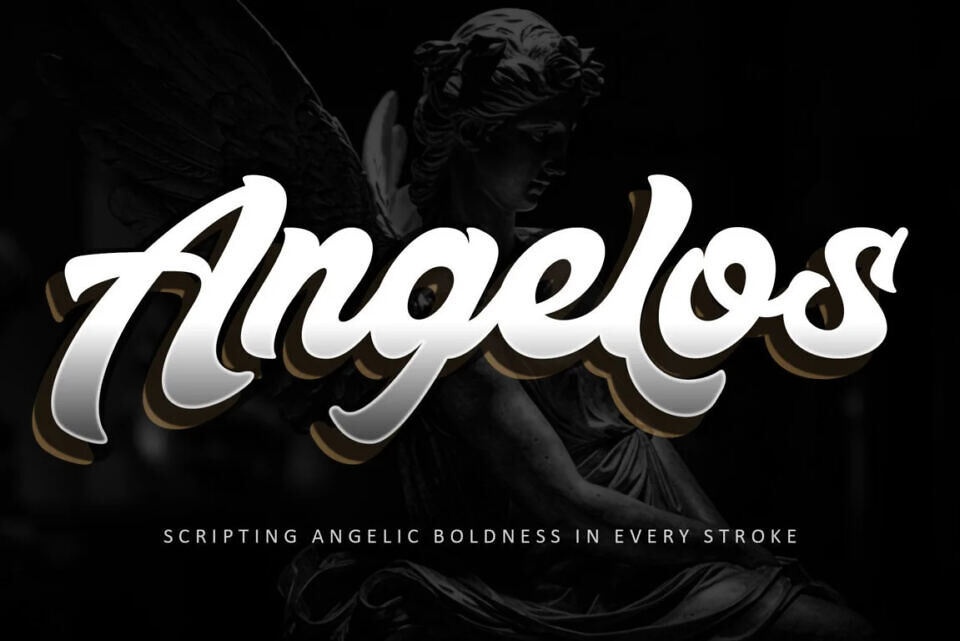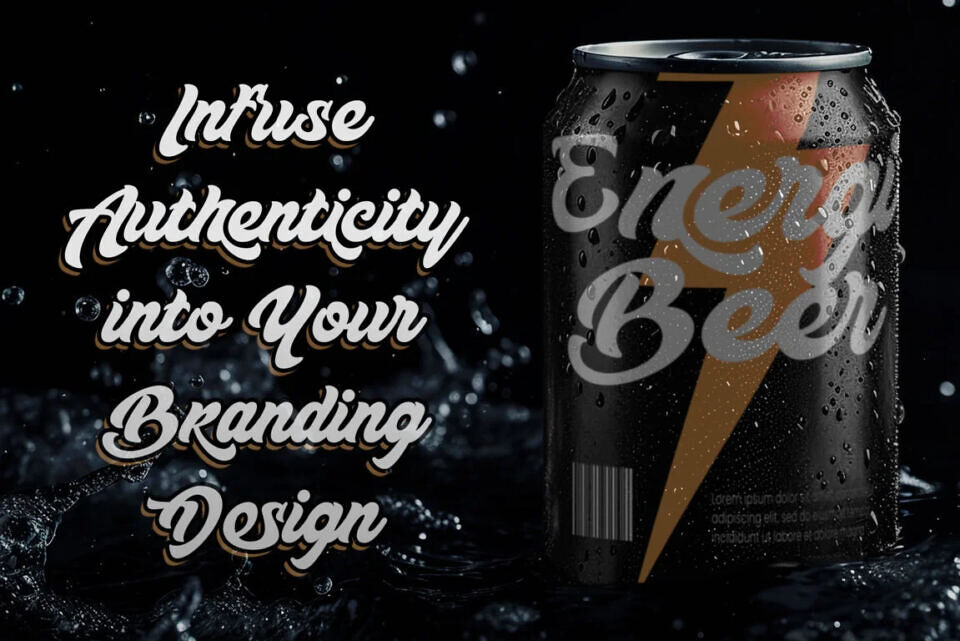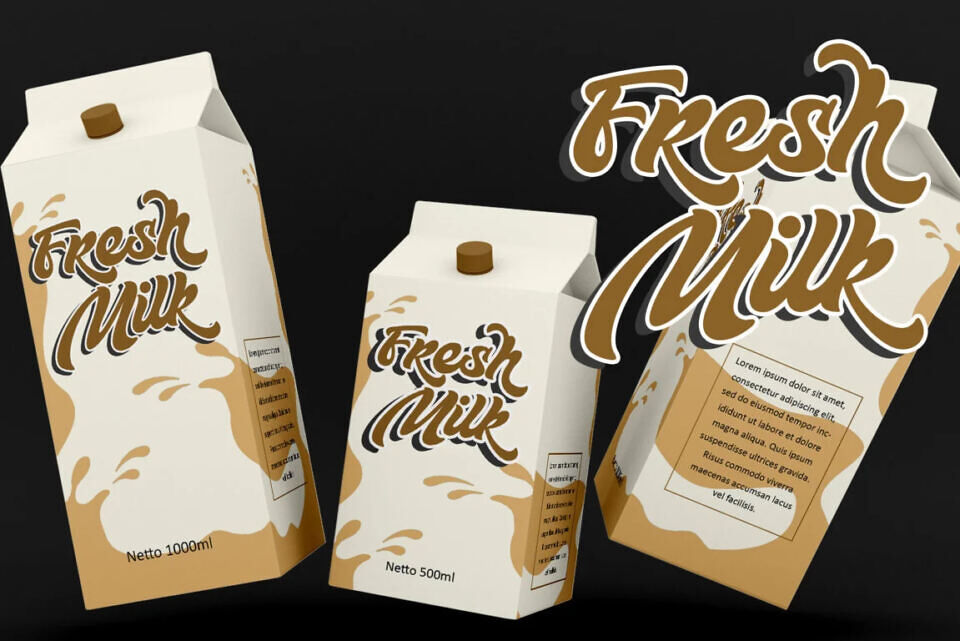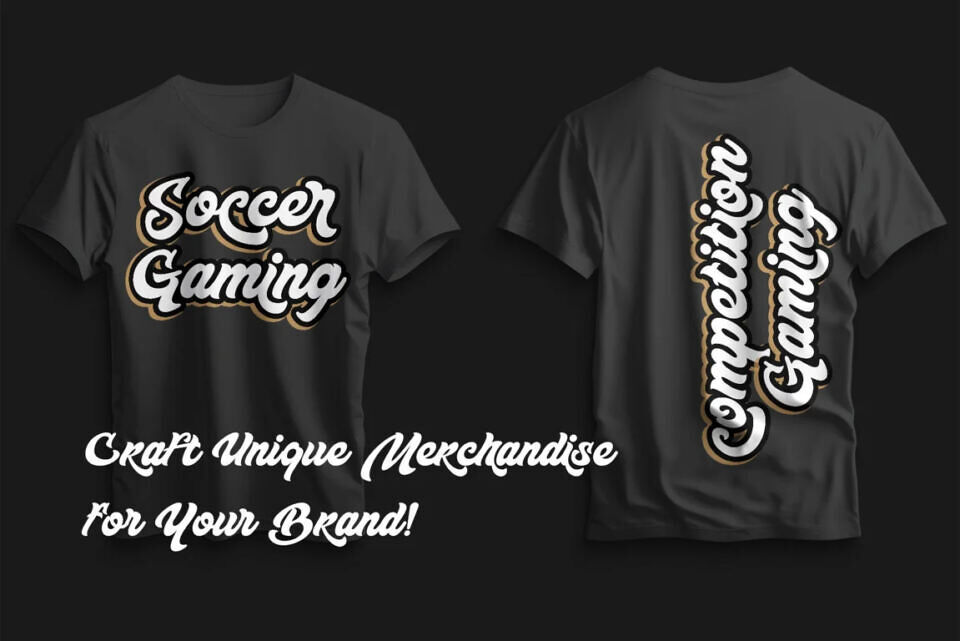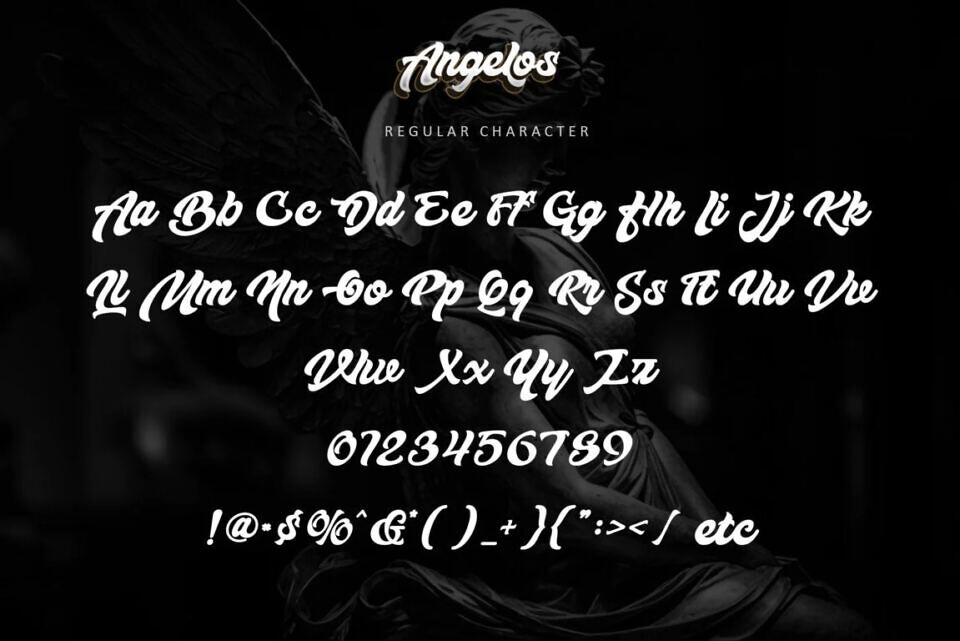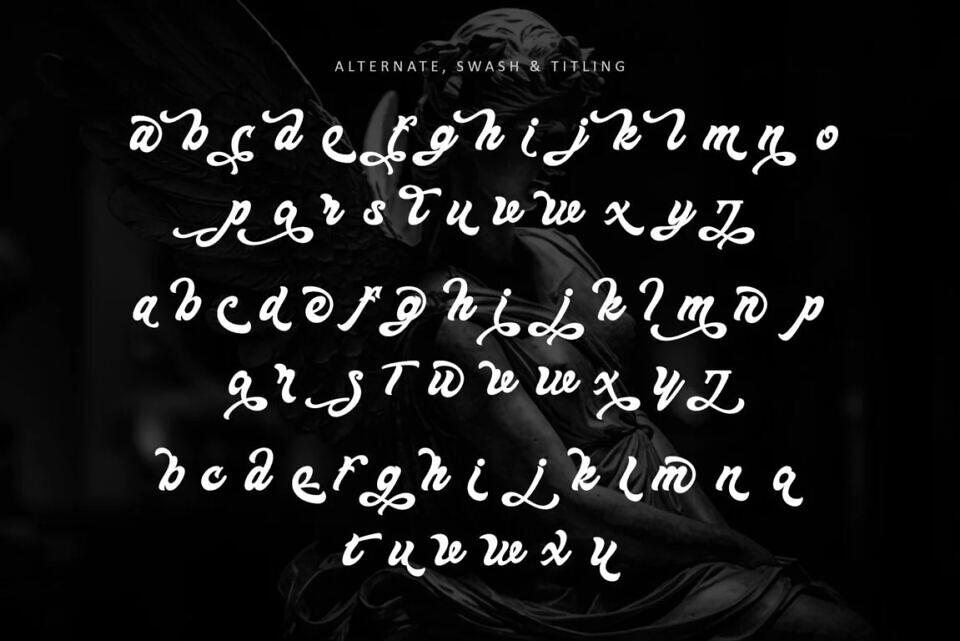
Angelos Font
Angelos is a bold, elegant script font designed to add sophistication and versatility to any design project. Meticulously crafted, it combines casual charm with modern style, making it ideal for headlines, branding, social media graphics, invitations, and digital or print projects.
Its smooth, flowing curves ensure readability and visual impact, while PUA encoding provides easy access to a wide range of glyphs and swashes, enhancing creative flexibility. Perfect for designers seeking a stylish, professional, and eye-catching script font that makes every design stand out with confidence and elegance.